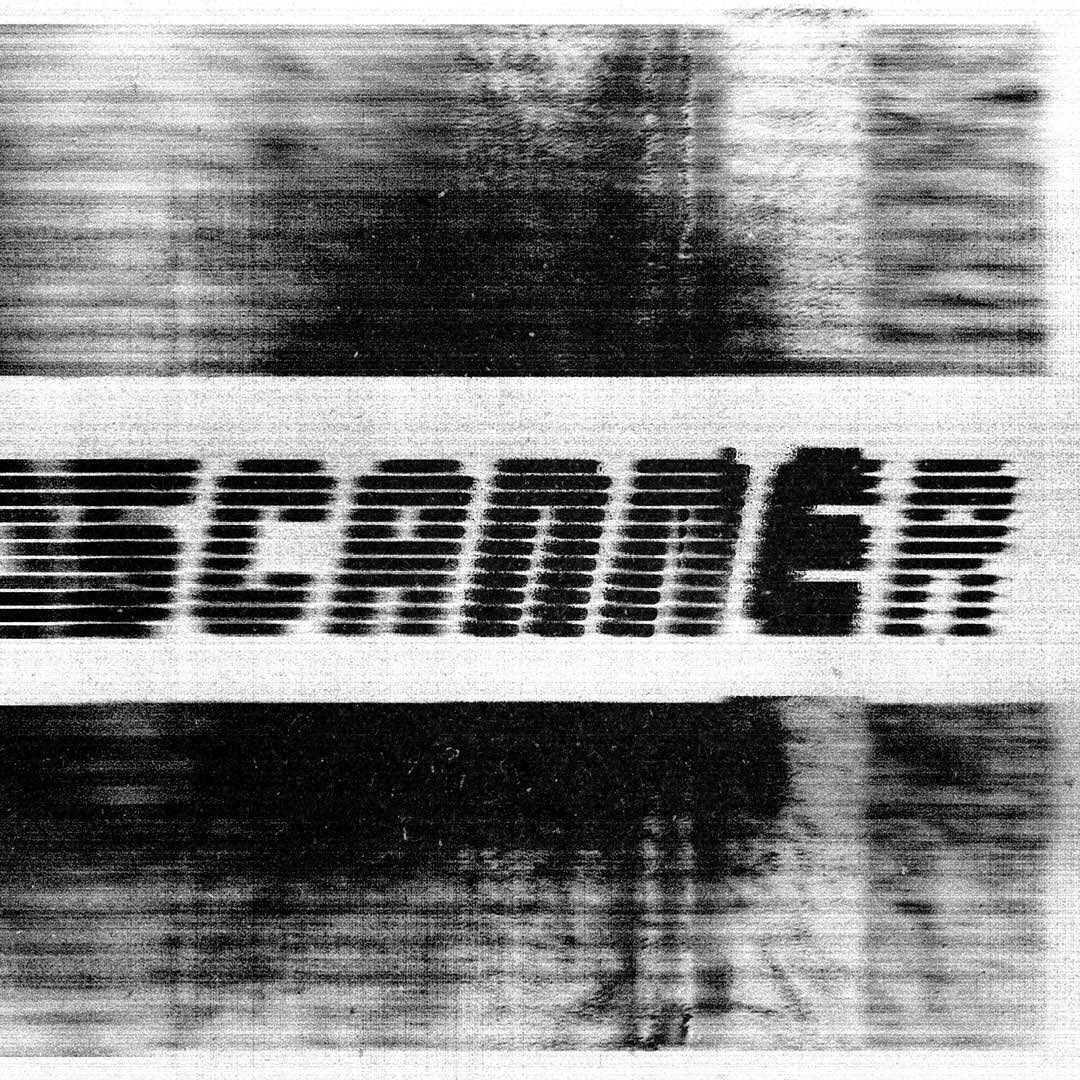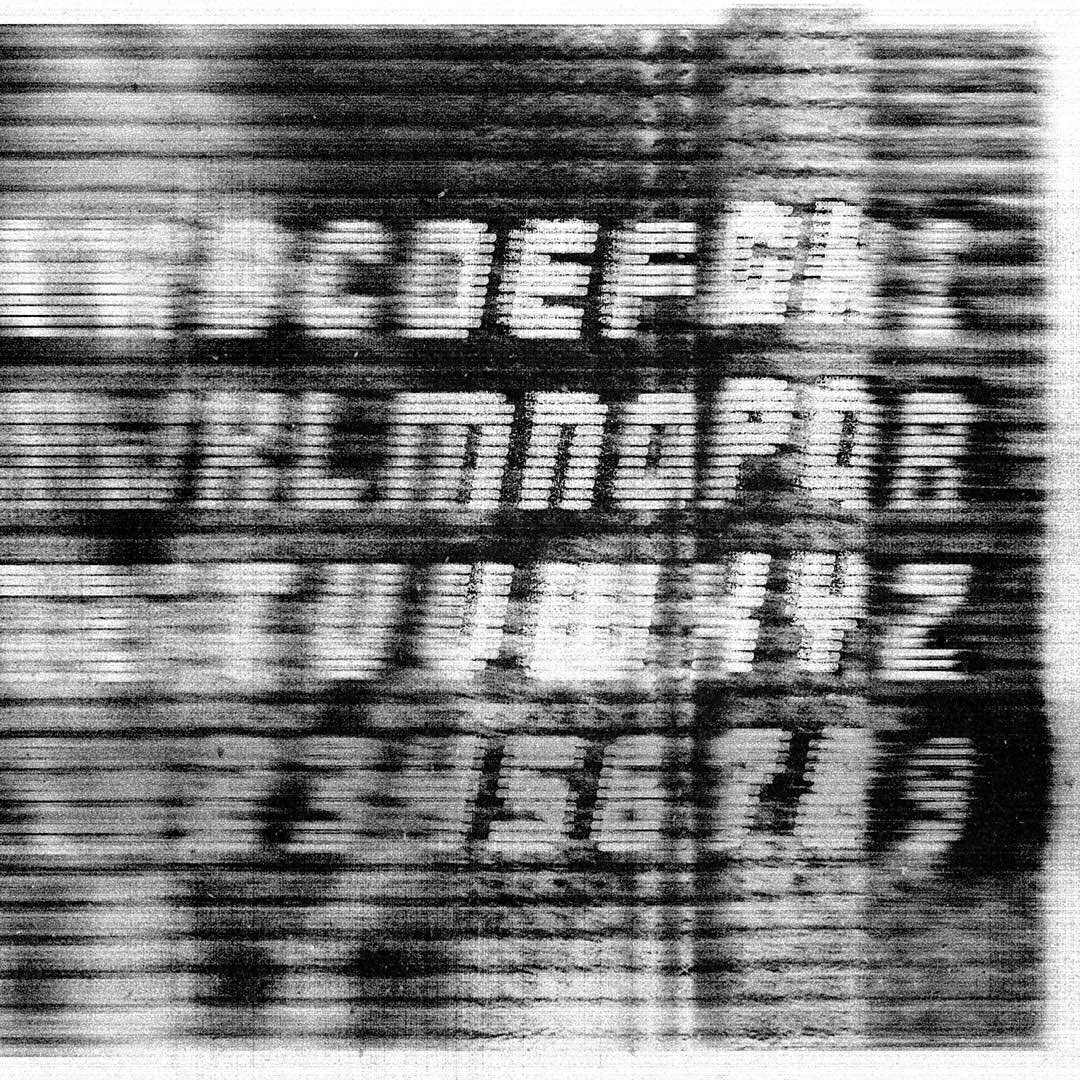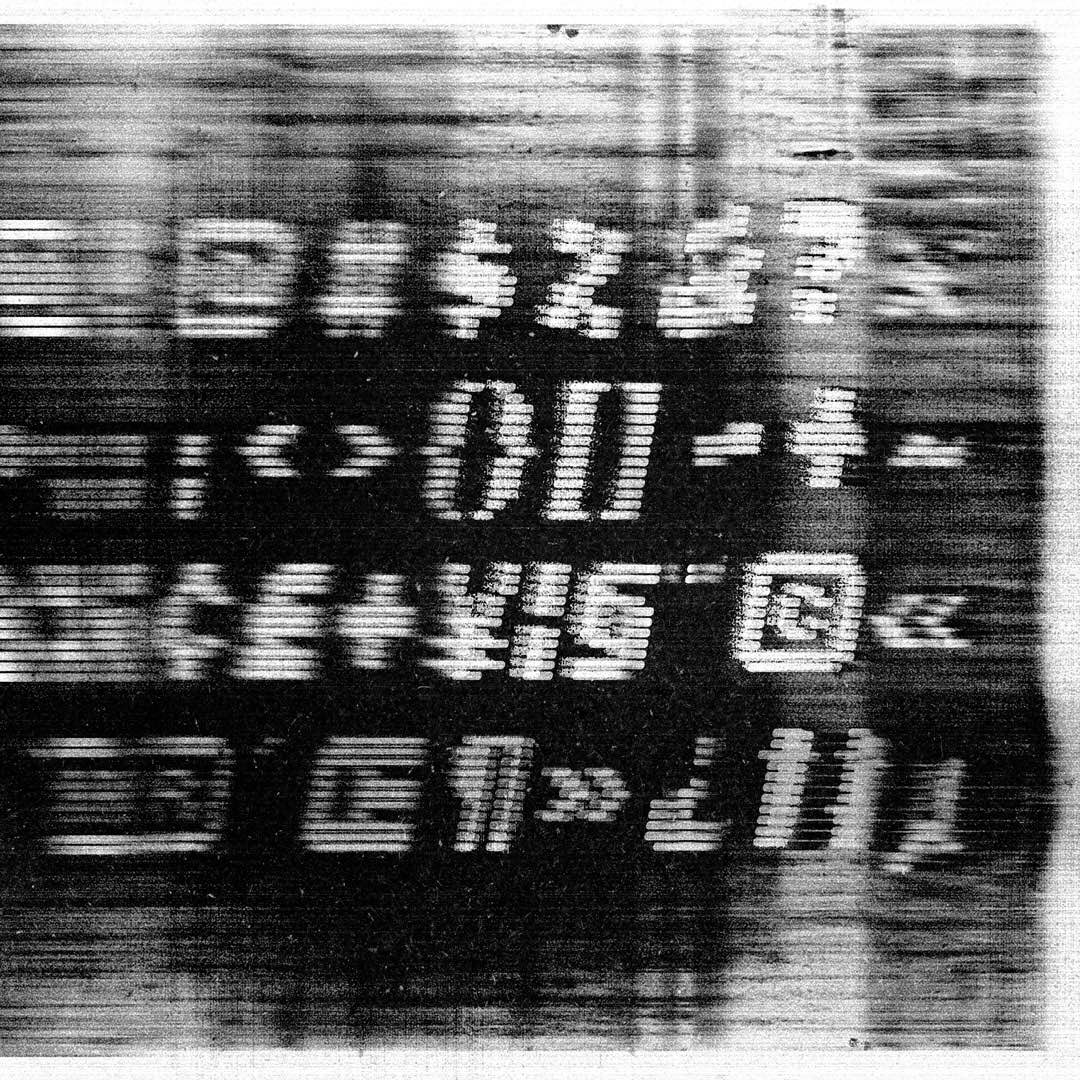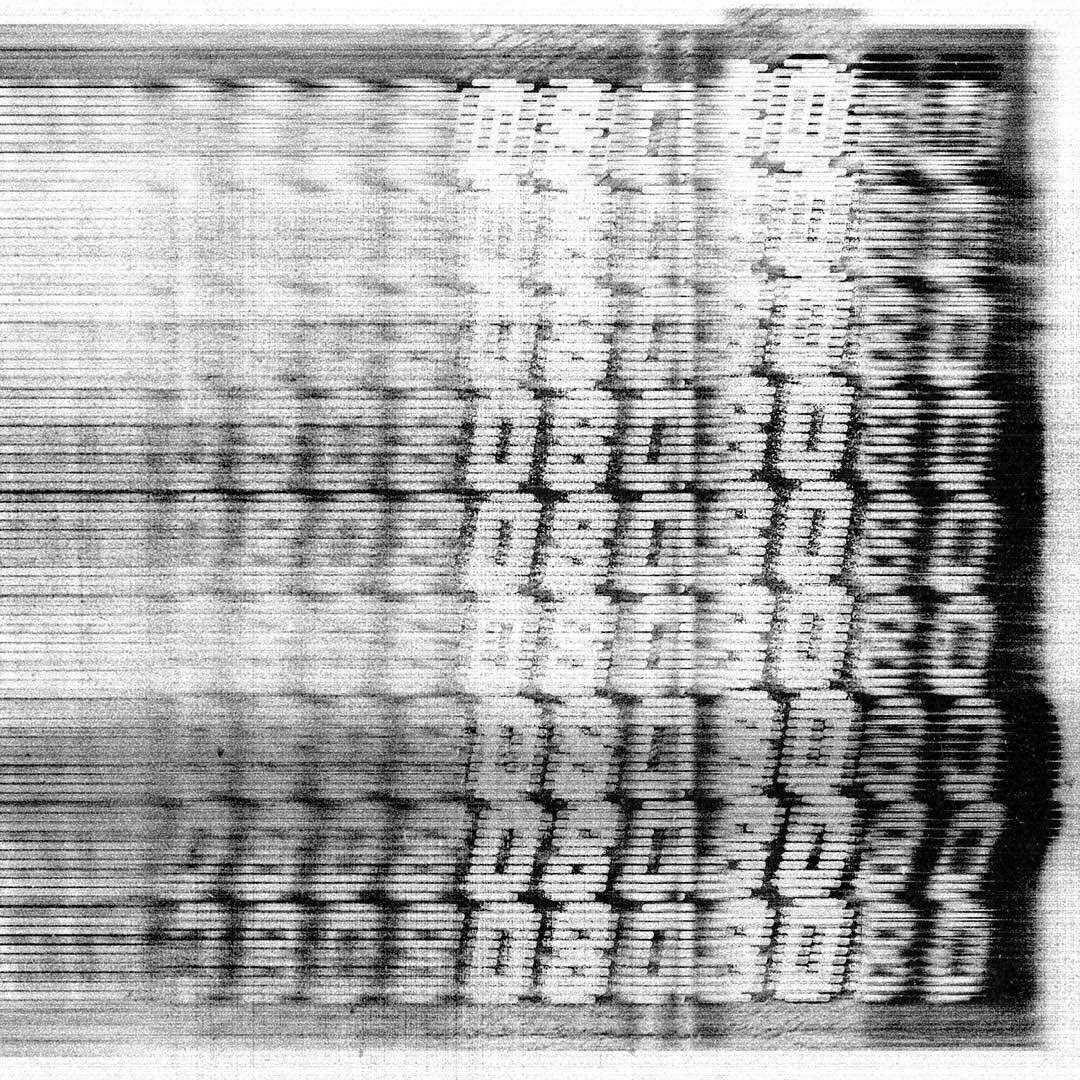
Scanner is cold, mechanical, and built for digital decay. Inspired by analog scanners, barcode readers, and retro-future tech, this monospaced display font captures the glitchy soul of 1980s dystopia and underground data streams. With rigid structure and lo-fi rhythm, Scanner is perfect for techno posters, hacker aesthetics, UI overlays, or anything that needs to look like it escaped from a corrupted CRT terminal. It’s clean. It’s sharp. It’s watching.